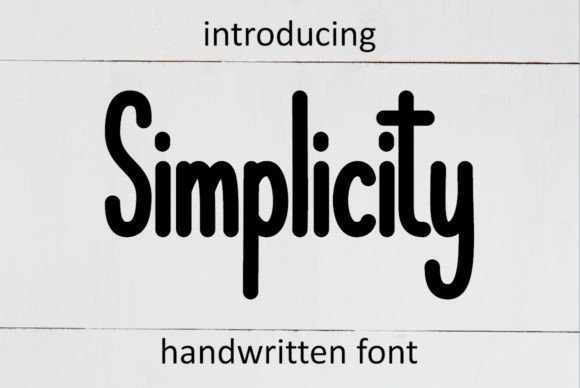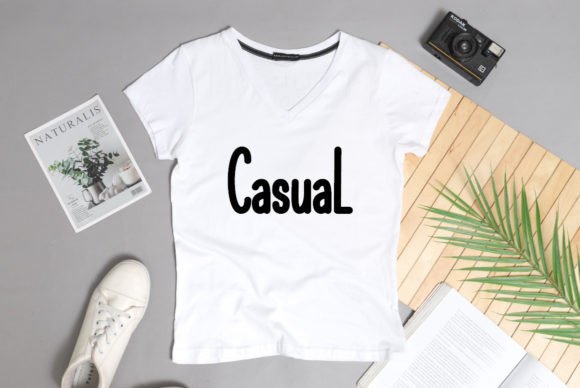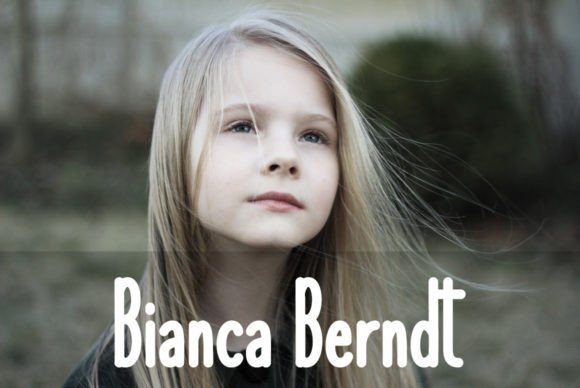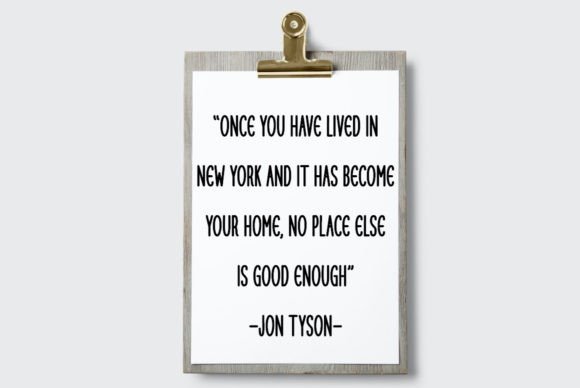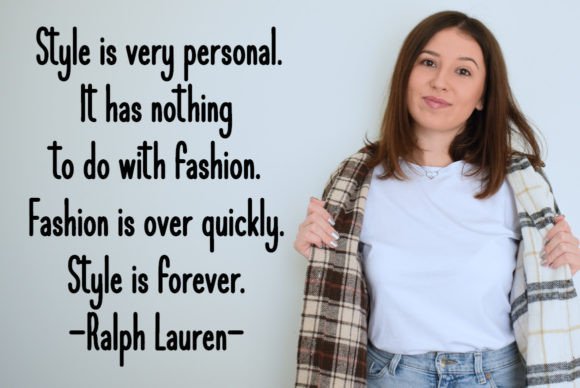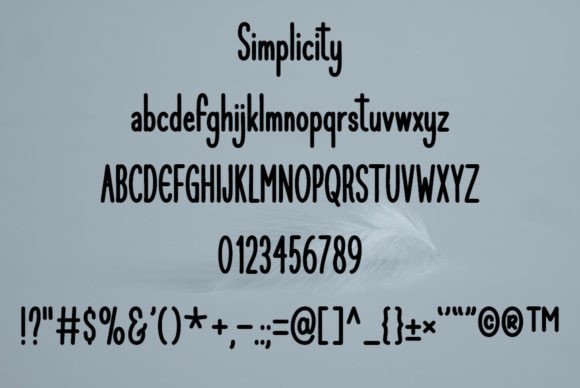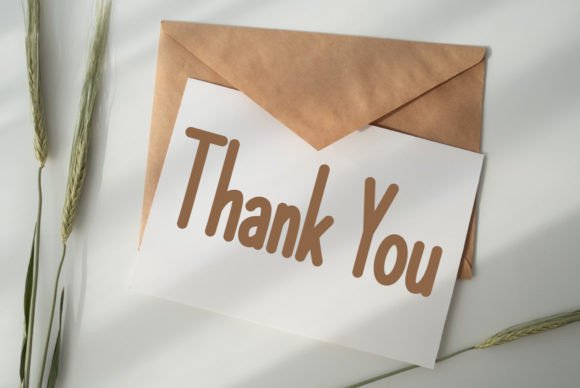
Simplicity
About Simplicity
Simplicity is Impossible is an enchanting handwritten font. This versatile script font has a wide spectrum of applications ranging from greeting cards to headlines and is guaranteed to add a romantic feel to your next project. This font is PUA encoded which means you can access all of the glyphs and swashes with ease!